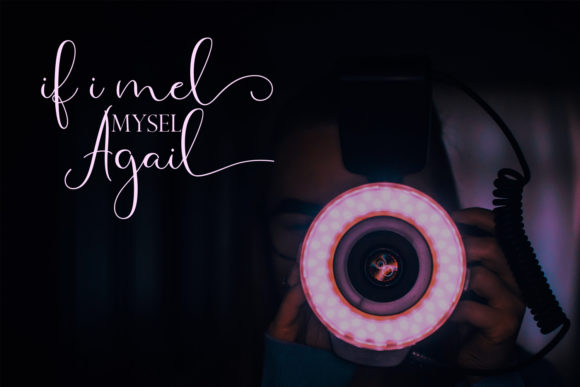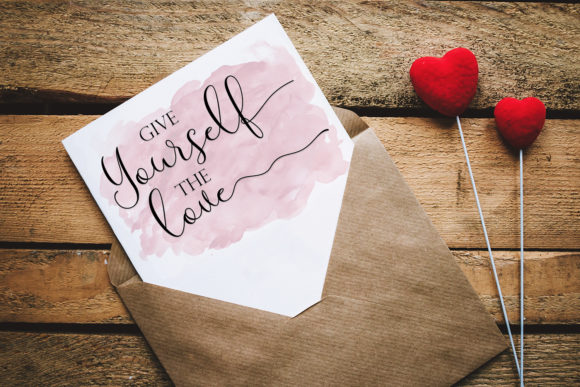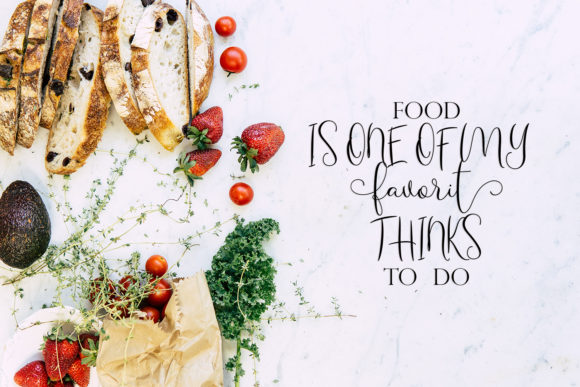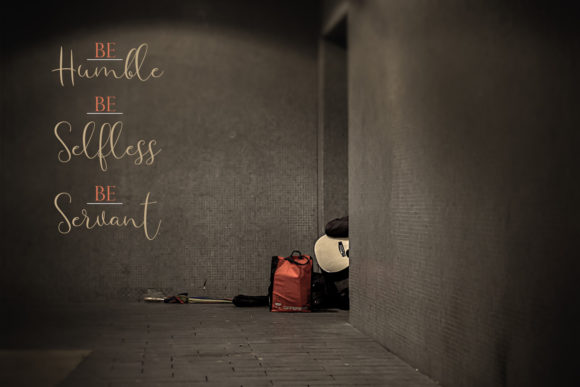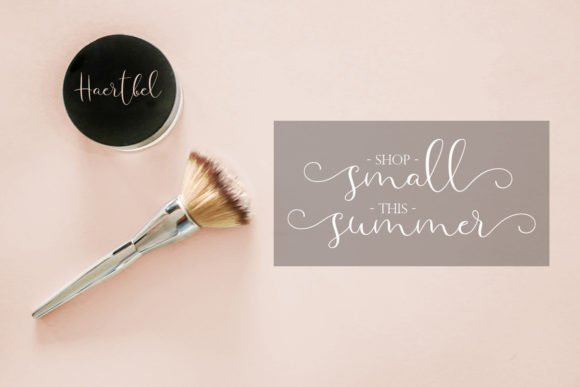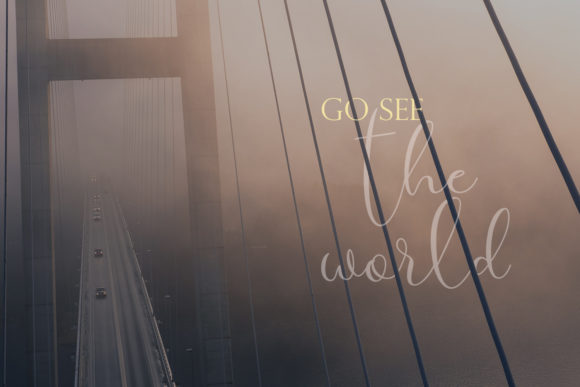
Have you ever sat down with a blank page, feeling stuck and unsure of where to start? You grab a cup of coffee, put on your favorite music, and let your imagination run wild. Suddenly, a beautiful script font catches your eye, and you know exactly what you want to create. For many designers, this is the moment when inspiration strikes.
Meet the Haertbel Script Font, a charming and sweet script that’s full of love. This beautiful font is perfect for designers who want to add a touch of elegance and sophistication to their projects. Whether you’re creating a wedding invitation, a branding package, or a social media graphic, Haertbel Script Font is the perfect choice. Its natural charm and beauty make it a valuable asset for any designer looking to create something truly special.
Haertbel Script Font Key Features
- Font Family: Haertbel Script, a beautiful script font ideal for invitations, greeting cards, and other creative projects.
- Unique Characteristics: Elegant, cursive script with intricate details and subtle flair, adding a touch of sophistication to any design.
- Font Style: Script, making it perfect for adding a personal touch to handwritten-style text.
Haertbel Script Font Review
As a designer, I was excited to dive into the Haertbel Script Font and see what it had to offer. Overall, I was impressed with its elegant and refined feel, making it perfect for projects that require a touch of sophistication ✨. The font’s subtle flourishes and connections give it a sense of handmade quality, which can be a great asset for designers looking to add a unique touch to their work.
- The Haertbel Script Font has a wide range of uses, from invitations and wedding designs to branding and advertising.
- The font’s high-quality design makes it perfect for print materials, such as business cards, brochures, and menus.
- The font’s elegant feel can also be used for digital projects, such as websites and social media graphics.
However, I did notice a few limitations with the Haertbel Script Font ⚠️. The font can be a bit too ornate for some projects, making it difficult to read in certain contexts. Additionally, the font’s connections can sometimes be a bit too loose, making it appear uneven.
Overall, I would give the Haertbel Script Font 4 out of 5 stars. While it’s not perfect, its unique feel and high-quality design make it a great addition to any designer’s toolkit. With a bit of careful consideration and planning, the Haertbel Script Font can be a fantastic choice for a wide range of projects.
Haertbel Script Font is perfect for:
- Personalized gifts and cards
- Food and drink labels
To get the most out of Haertbel Script Font, use it sparingly and in combination with other fonts to create visual interest.
Alternatives to Haertbel Script Font
Carolyna Pro is a modern calligraphy script font ideal for luxury branding, invitations, and high-end marketing materials. It’s perfect for designers who want to create elegant and sophisticated designs. Compared to Haertbel Script Font, Carolyna Pro has a more refined and polished look, making it suitable for premium brands.
Great Vibes is a beautiful script font that works well for headings, titles, and quotes. It’s perfect for designers who want to add a touch of whimsy and playfulness to their designs. Compared to Haertbel Script Font, Great Vibes has a more relaxed and casual feel, making it suitable for creative and artistic projects.
Playfair Display is an elegant and luxurious script font ideal for high-end branding, advertising, and editorial design. It’s perfect for designers who want to create sophisticated and refined designs. Compared to Haertbel Script Font, Playfair Display has a more classical and traditional look, making it suitable for premium brands and luxury products.